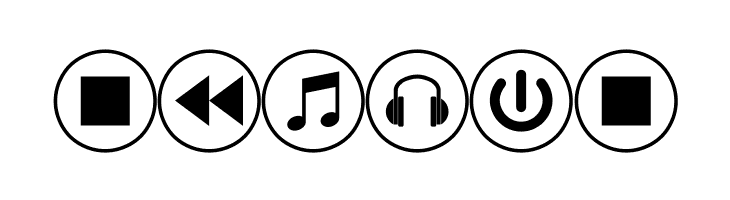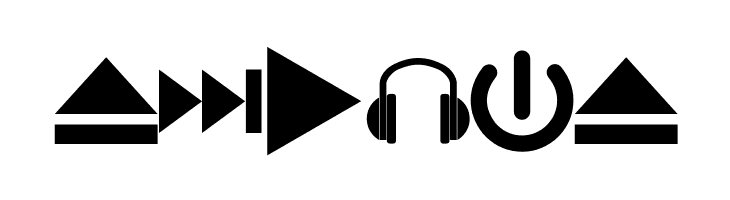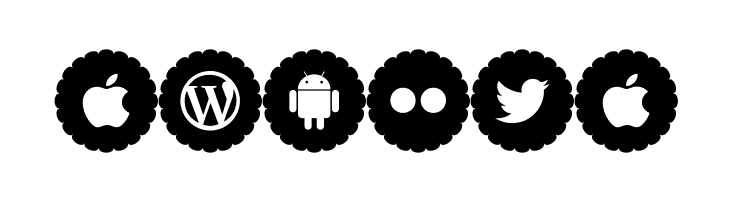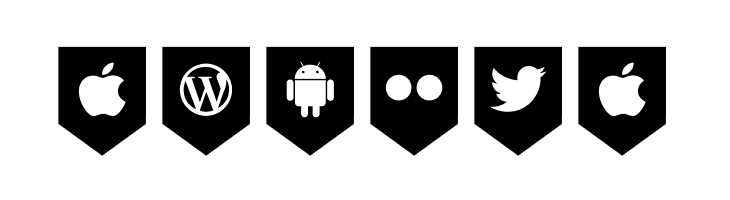
font bottons music pro Font
Music and audio control icon set with bold, circular designs.
Bottons Social Media 2019 Font
Uniform, scalloped circular icons for various social media and tech brands.
Bottons Social Media Font
Flat, geometric social media and service icons in shield shapes.
font bottons music Font
Bold, geometric icon set for music and media controls.